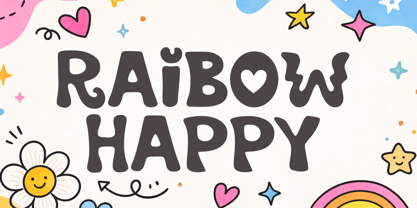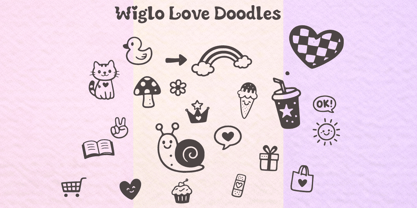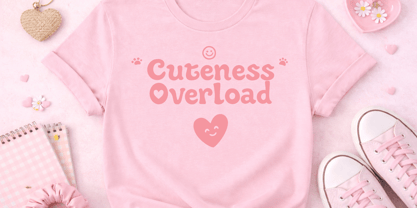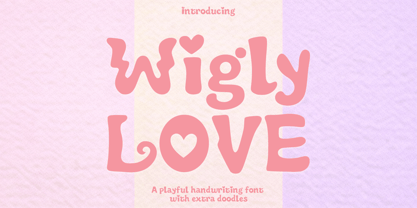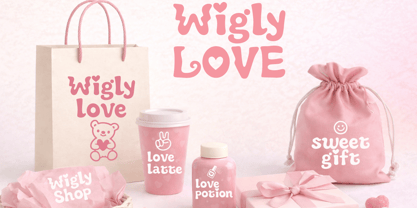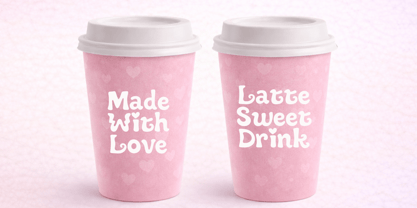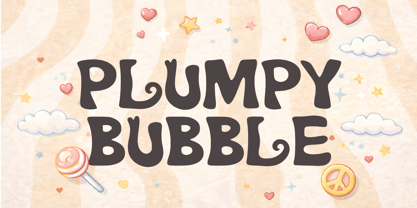
Wigly Love
by Cocodesign
The Wigly Love Font Family was designed by Muhammad Zaini and published by Cocodesign. Wigly Love contains 2 styles and family package options. More about this family
Wigly Love is a playful bubble display font with a soft, charming, and eye-catching personality. Its rounded, whimsical letterforms create a warm and friendly feel, making it perfect for designs that aim to look fun, cute, and inviting. This font features subtle heart-inspired details that blend naturally into the characters, adding a unique touch without sacrificing readability. The letter structure remains clean and well-balanced, ensuring it works beautifully at various sizes.